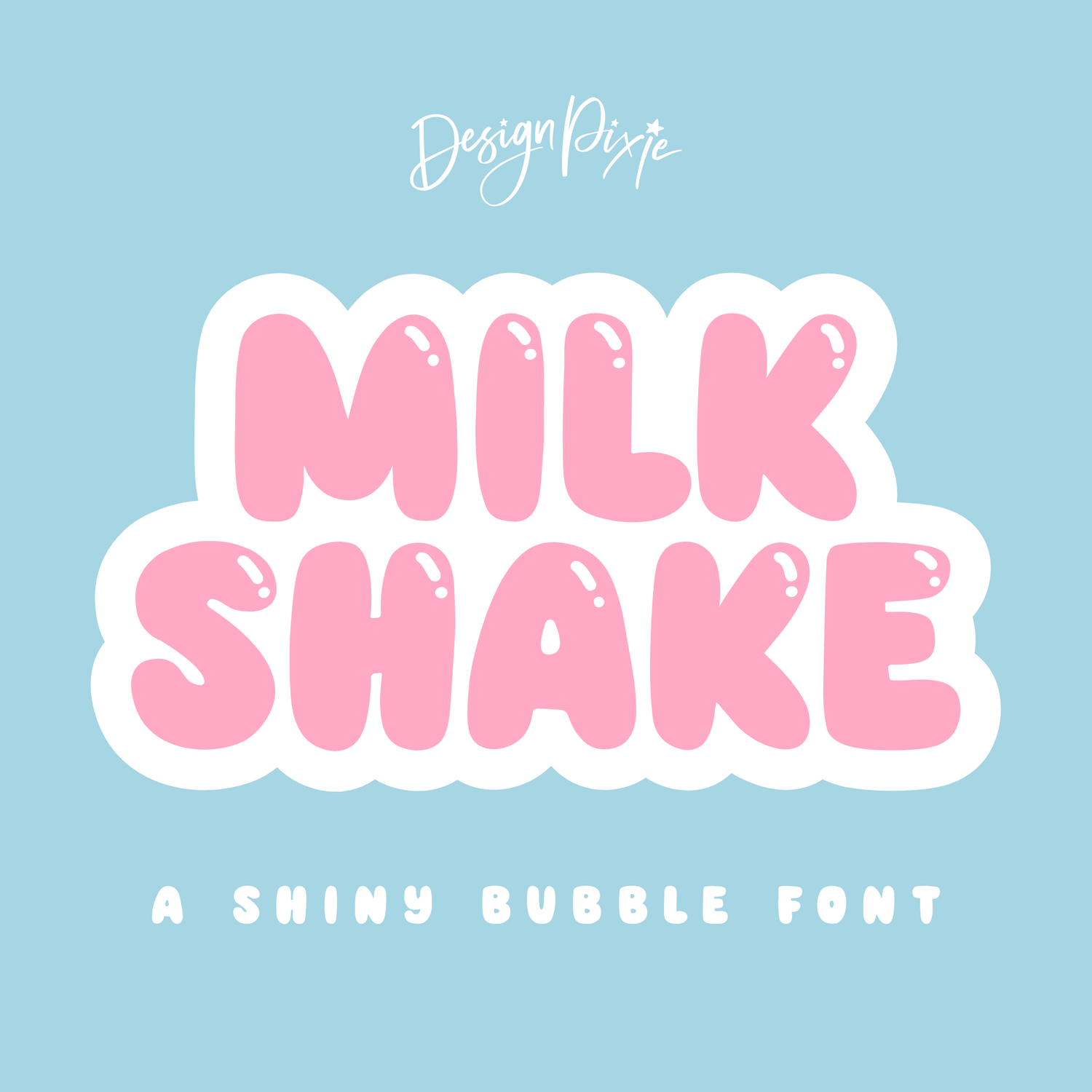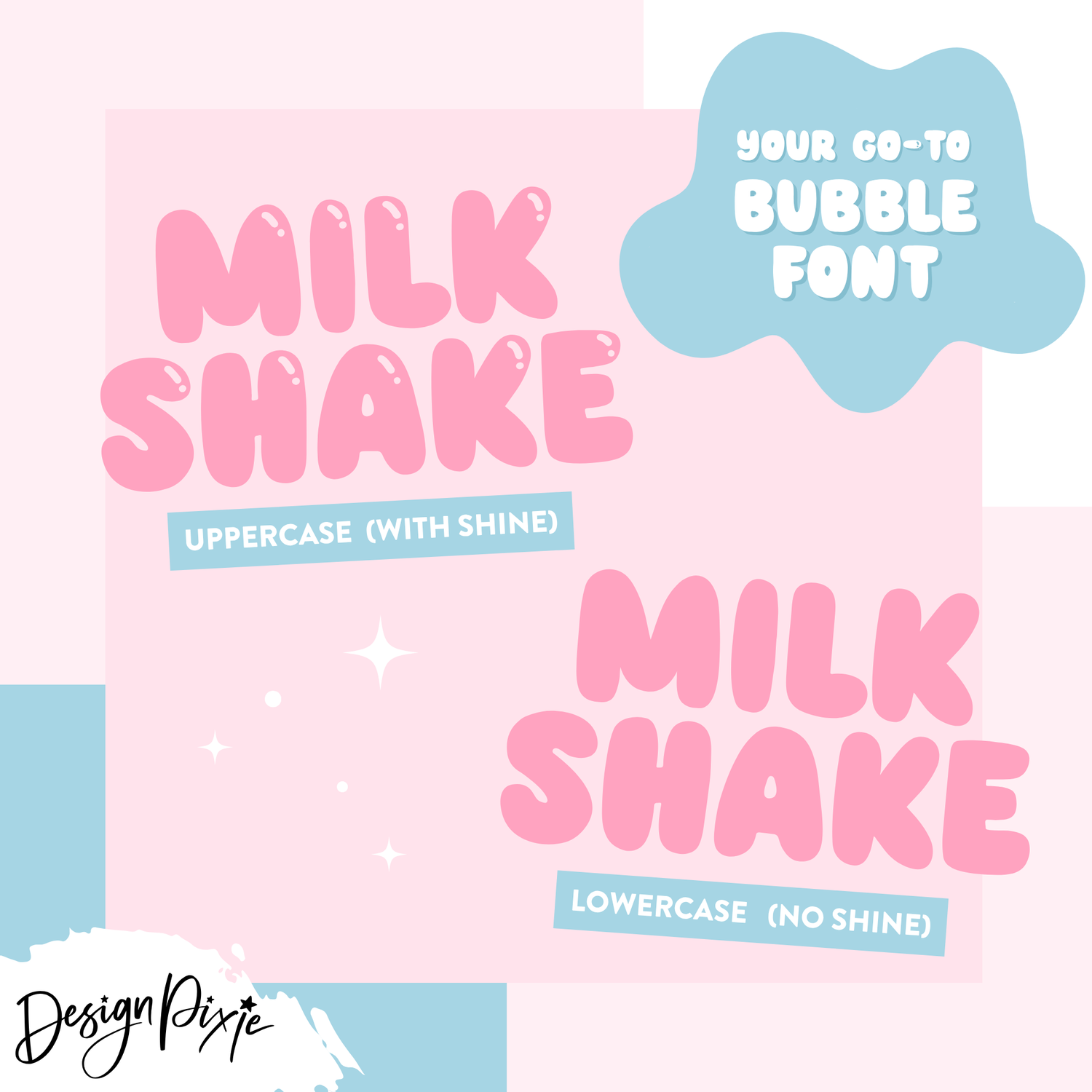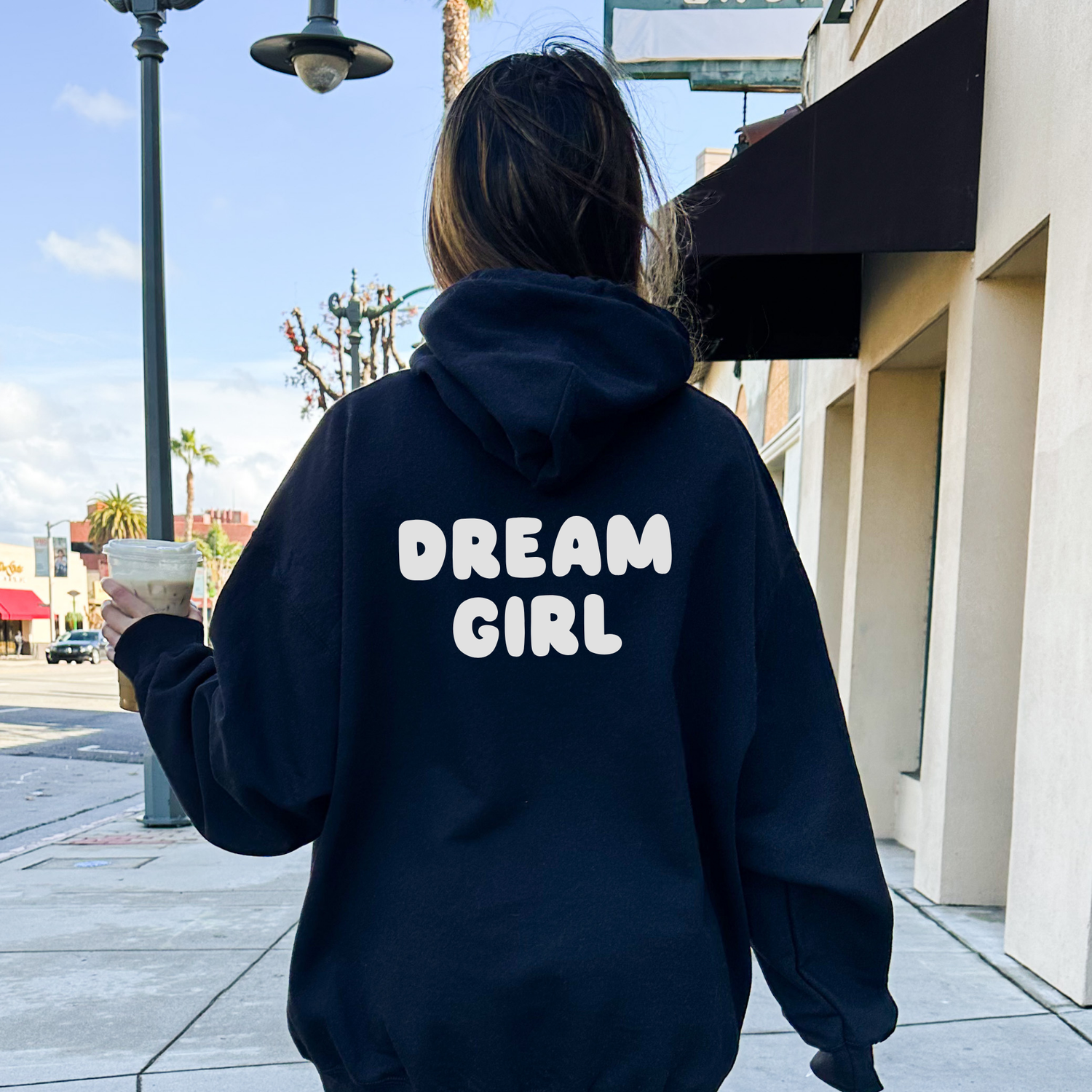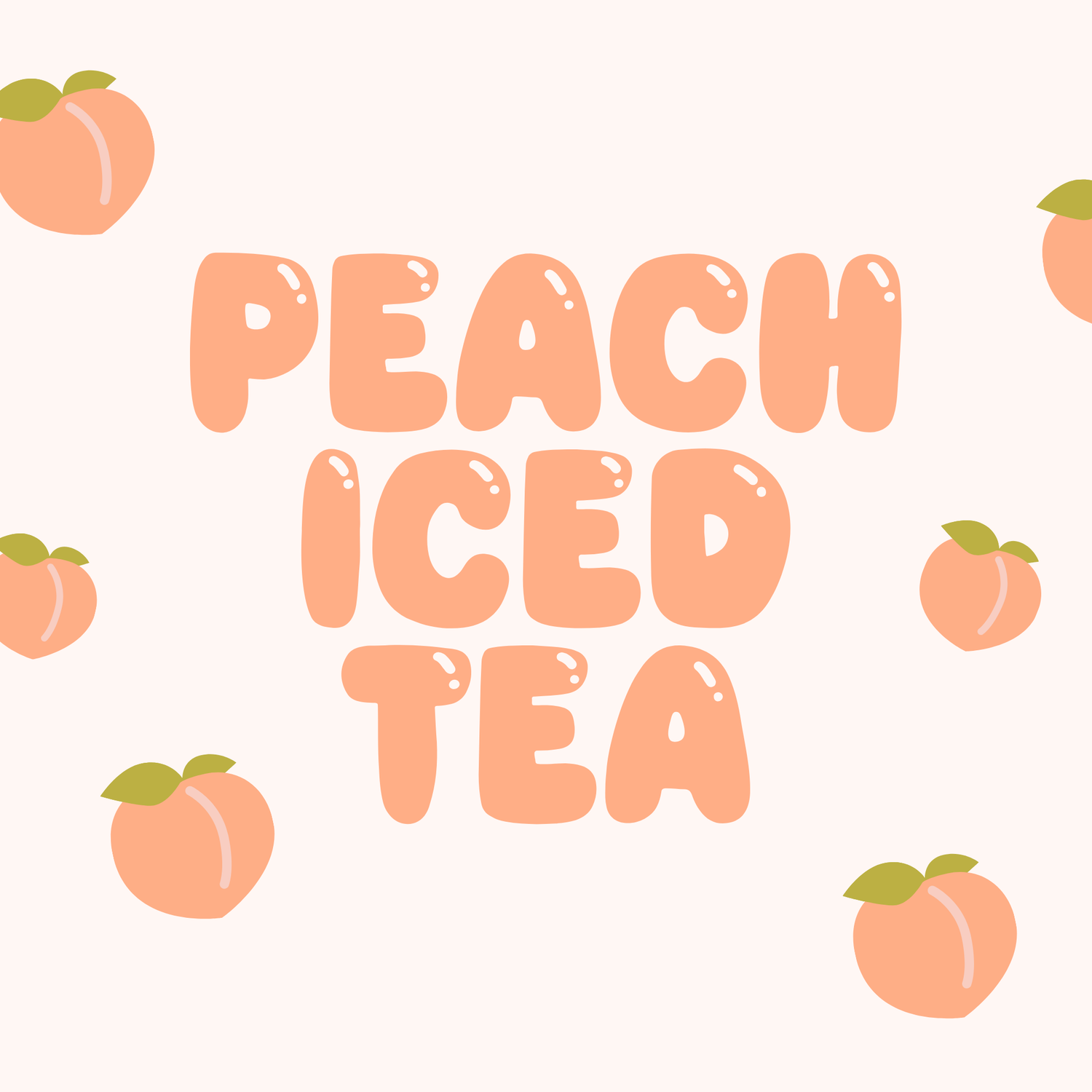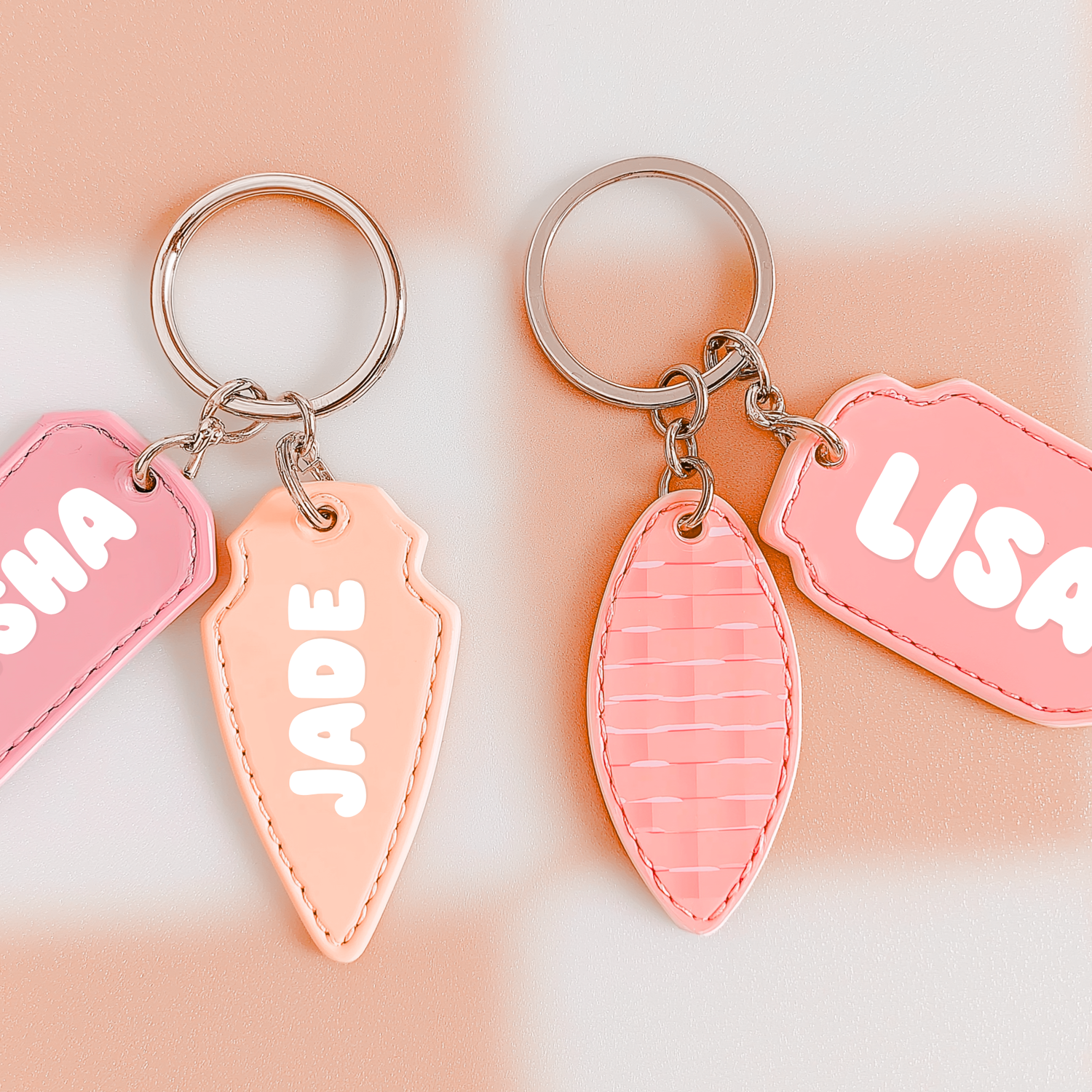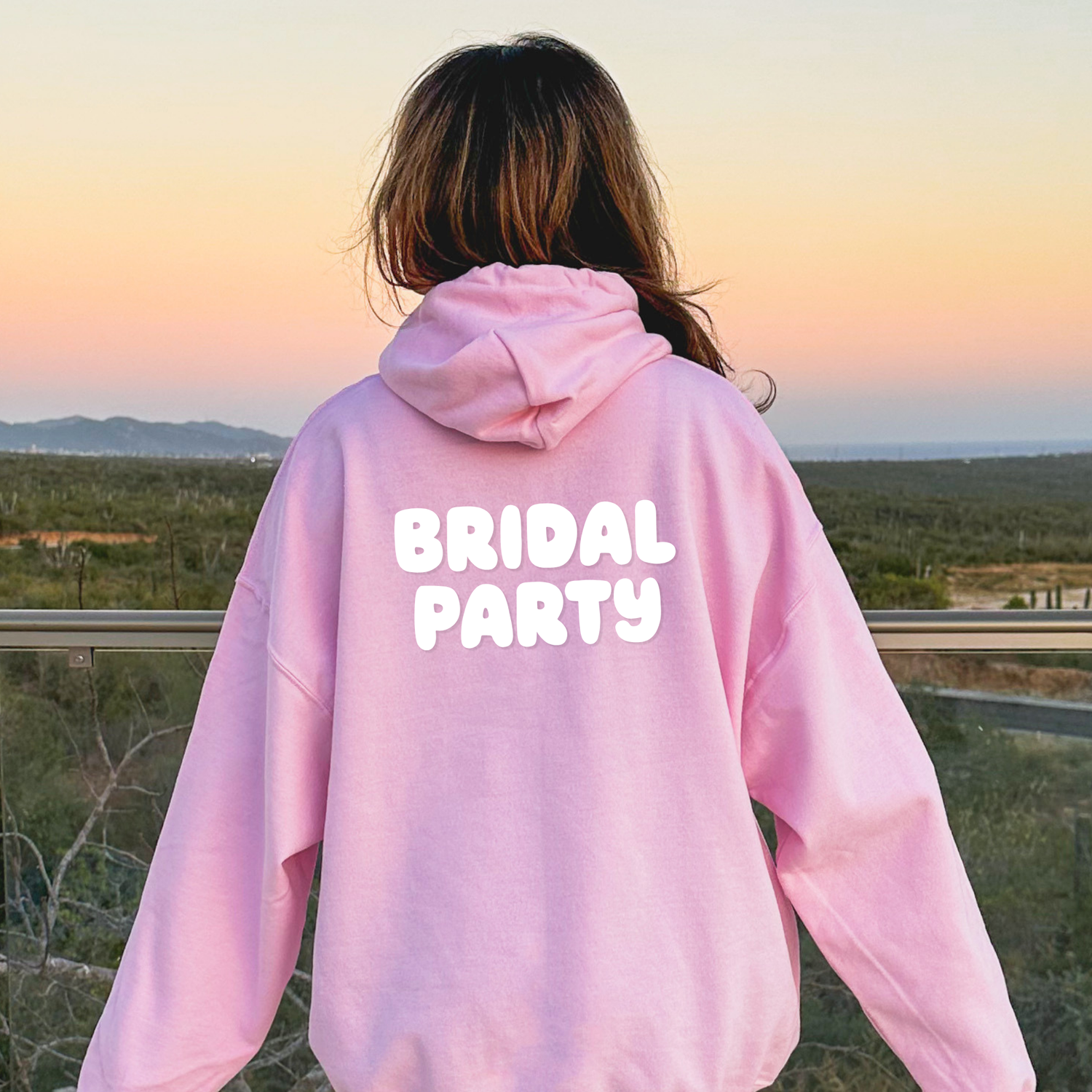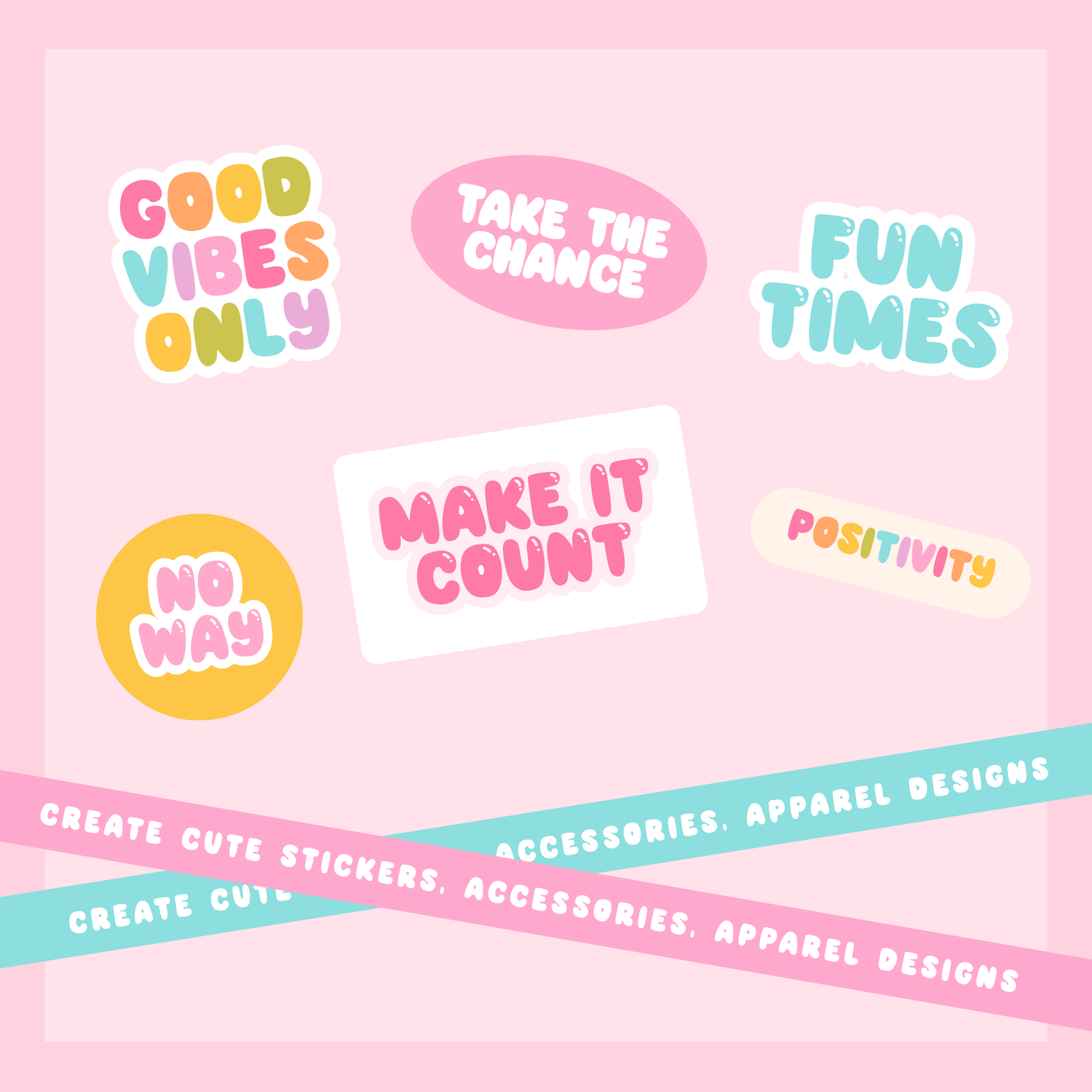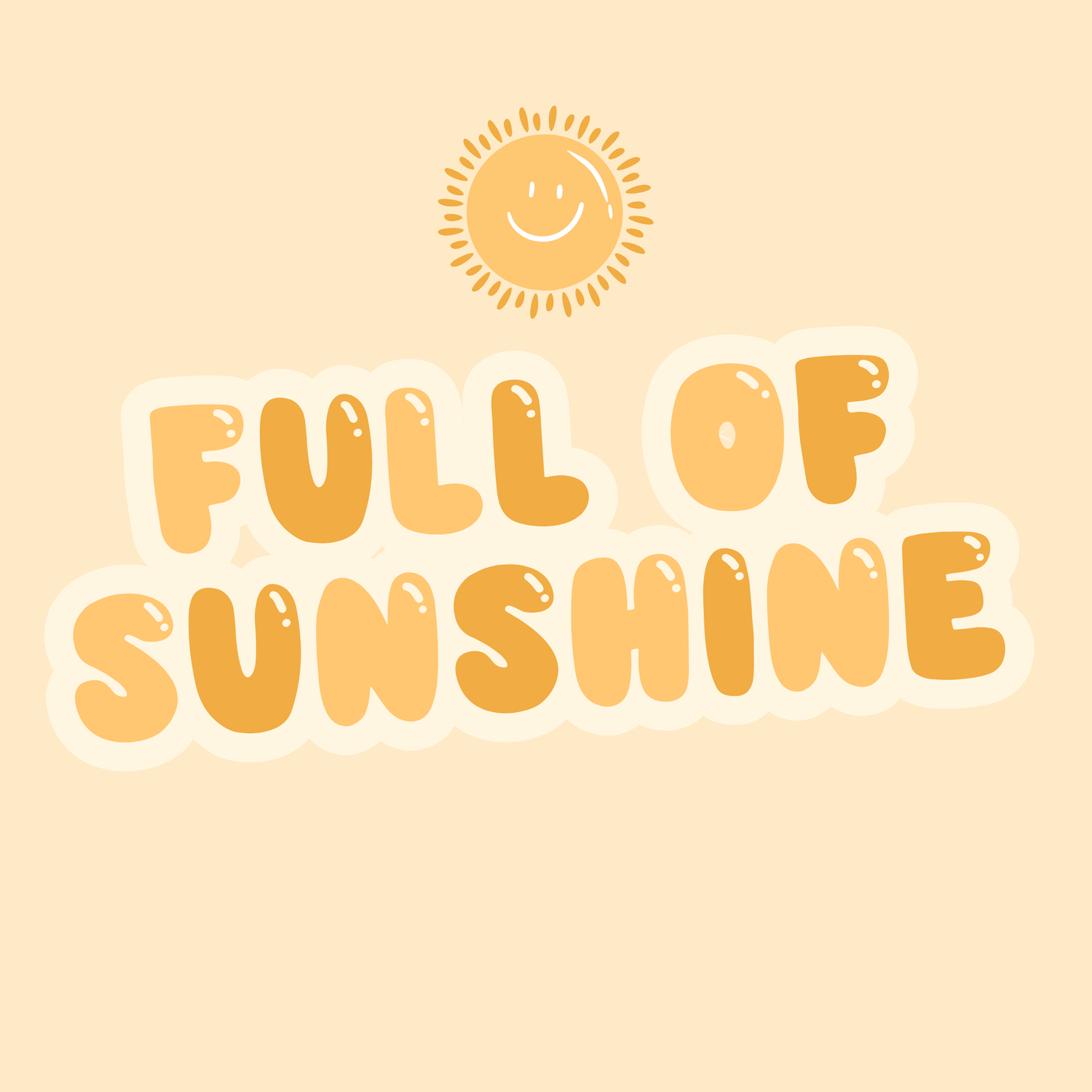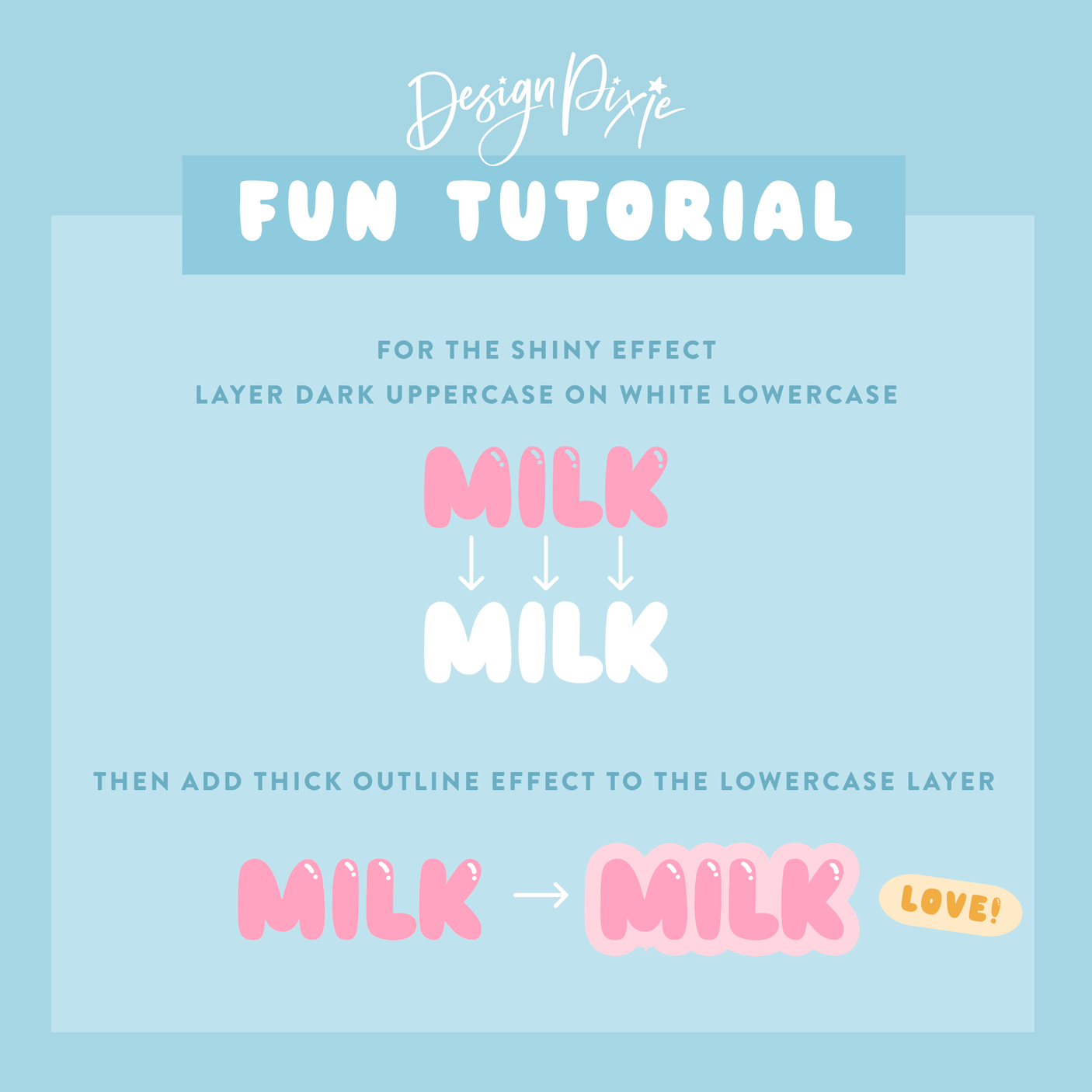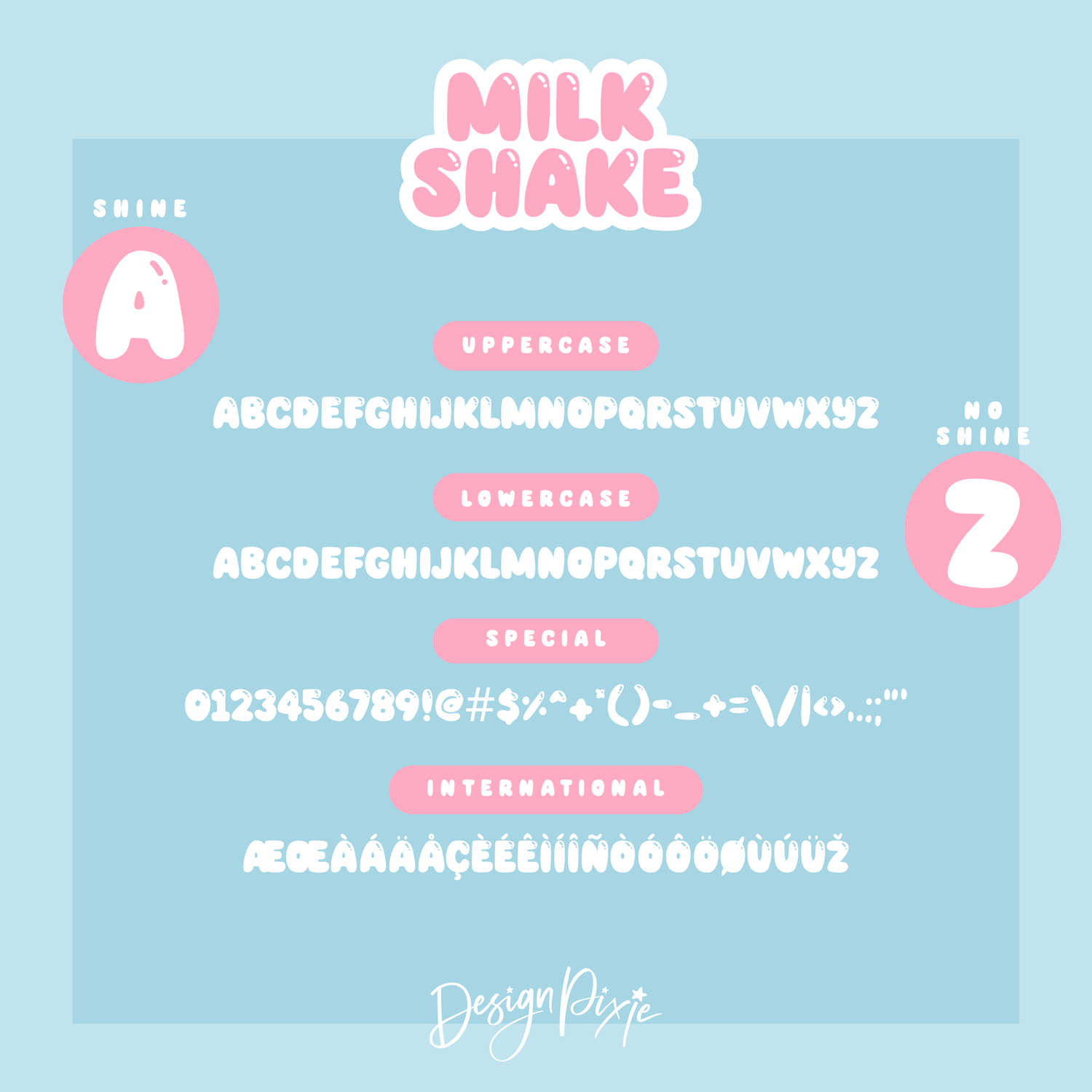
Bubble Font - Milk Shake
Make your designs pop with our shiny bubble font called Milk Shake. It's playful and cute with bubble letters in both shine and flat. Whether you’re working on creating products with words, branding, packaging, or social media graphics, this font's unique bubble style will make your text stand out with a touch of fun and vibrancy. It’s a bold retro font in all uppercase, great for creating SVGs, stickers and prints for apparel.
The uppercase letters have the shine and the lowercase are solid.
The Milk Shake font is all about making a statement. Its bold, shiny bubble letters are designed to catch the eye and bring a sense of joy and playfulness to your work. Each character has been carefully crafted to create a smooth, rounded appearance that’s both modern and whimsical. This makes it an ideal choice for projects that need to convey energy, creativity, and a sense of fun.